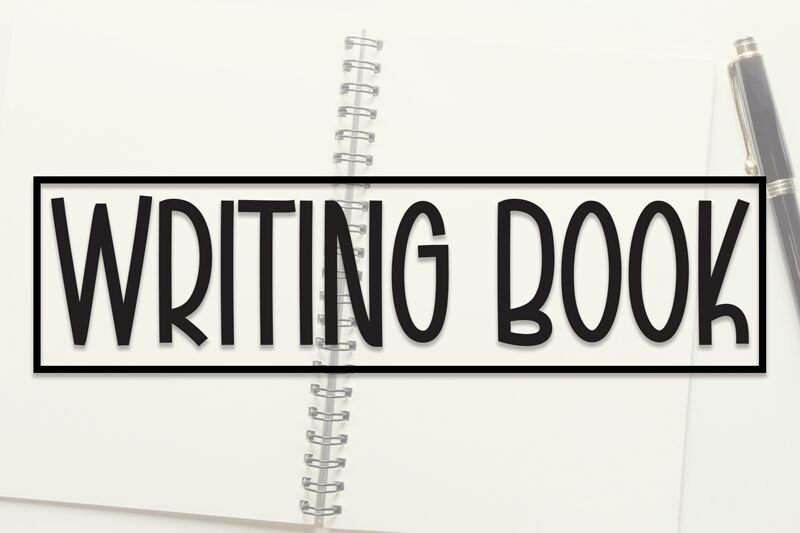
Writing Book
Writing Book, a creation by Scratchones, is an all caps display font that exudes a retro charm with its block letter style. Its semi-light weight and extra-condensed width make it an ideal choice for projects seeking a sleek and space-saving design.
Use Writing Book to bring a nostalgic touch to your posters, logos, or packaging designs. Its distinctive personality will add a unique flair to any project, making it stand out in the crowd.
Unleash your creativity and transport your audience back in time with this captivating typeface.
The latest style letters are perfect for wall displays, wedding invitations, social media post logos, advertisements, product packaging, product designs, labels, photography, watermarks, invitations, stationery, and any project that requires taste handwriting.
Use Writing Book to bring a nostalgic touch to your posters, logos, or packaging designs. Its distinctive personality will add a unique flair to any project, making it stand out in the crowd.
Unleash your creativity and transport your audience back in time with this captivating typeface.
The latest style letters are perfect for wall displays, wedding invitations, social media post logos, advertisements, product packaging, product designs, labels, photography, watermarks, invitations, stationery, and any project that requires taste handwriting.